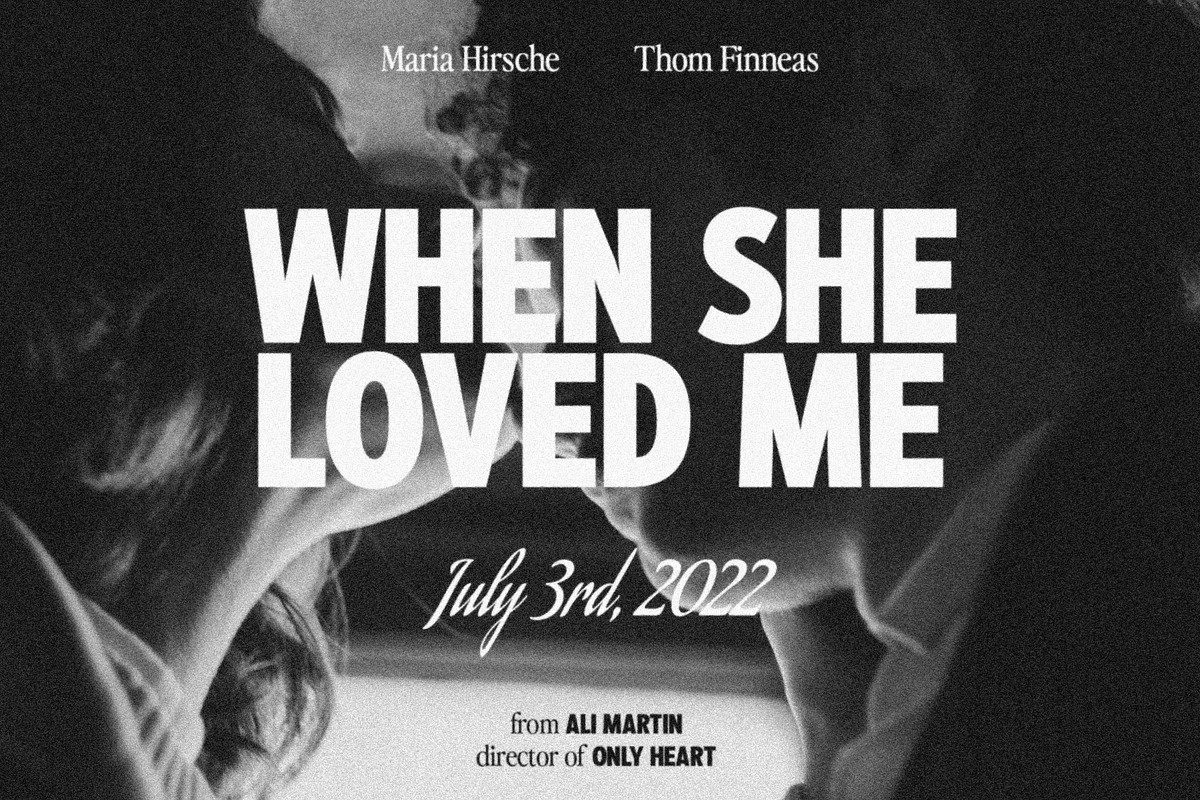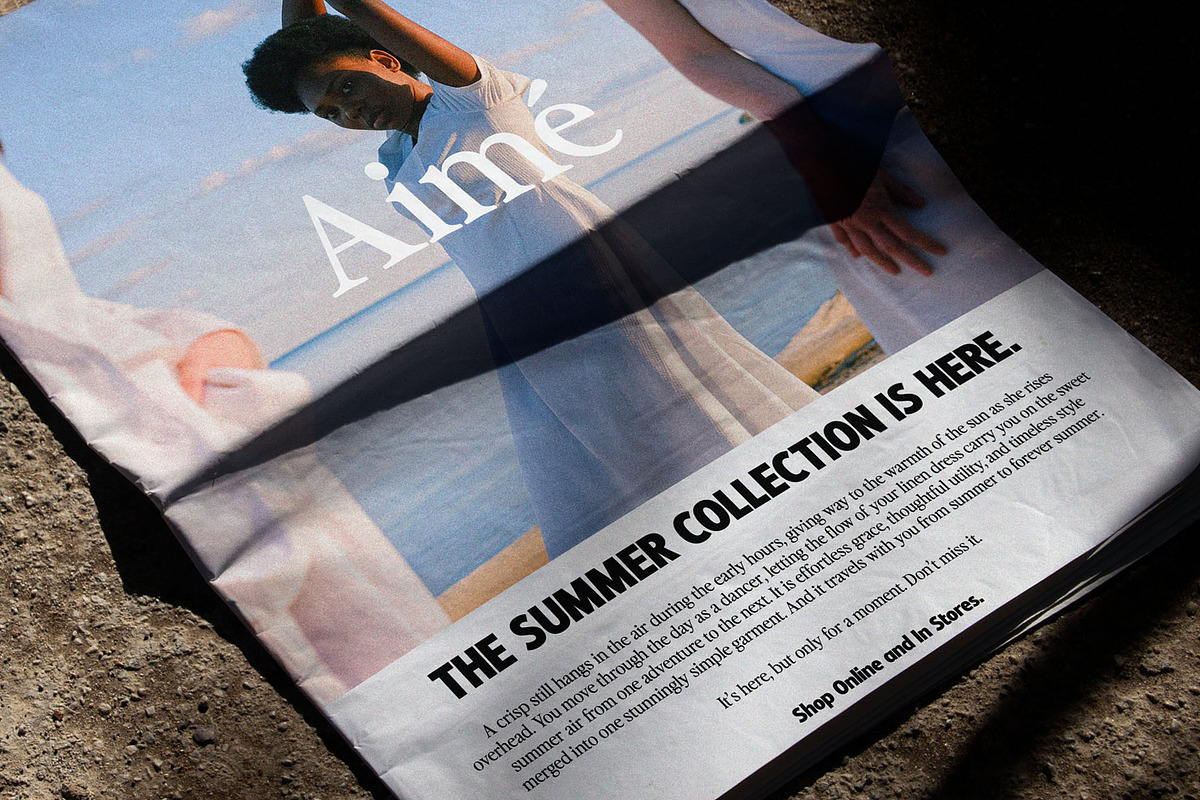
Nineties Headliner is a bold, nostalgic sans serif font inspired by text-focused magazine ads of the 80s and 90s. As the classic, text-focused design of the 80s & 90s is making a comeback, I wanted to create the perfect sans for you to recreate the look!
With both upper and lowercase, Nineties Headliner works beautifully for logos or as primary header text, especially at large scale.